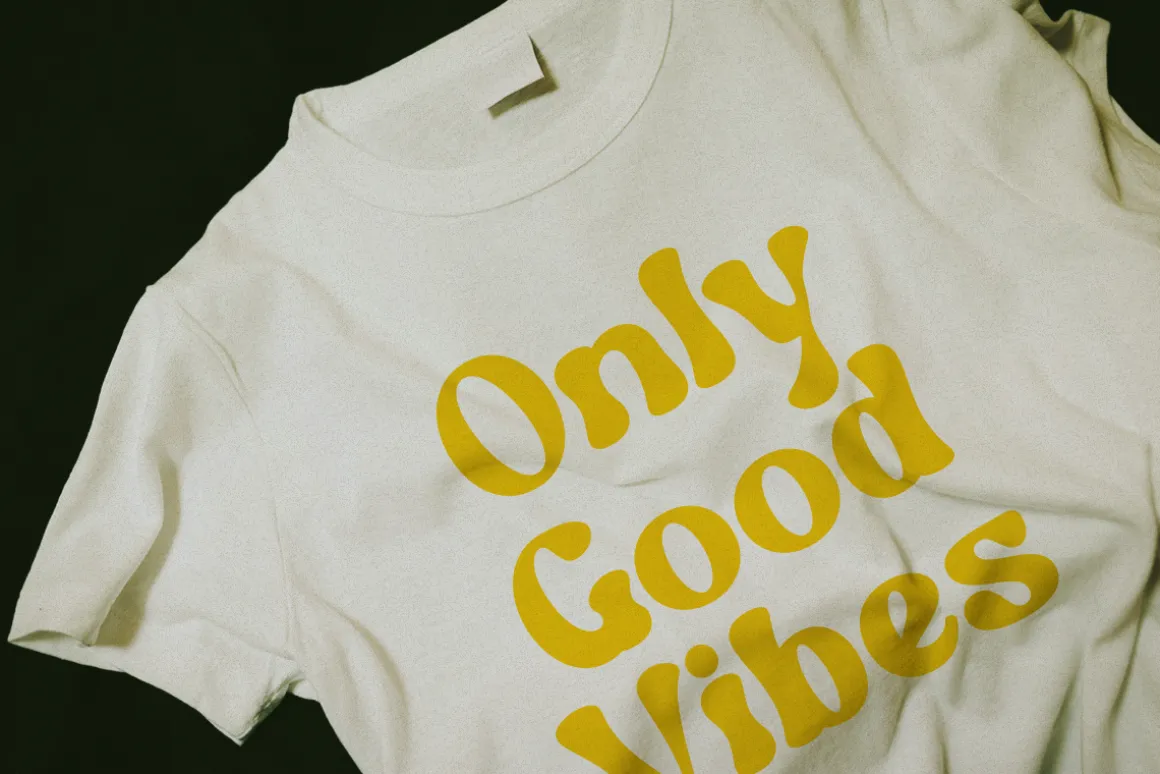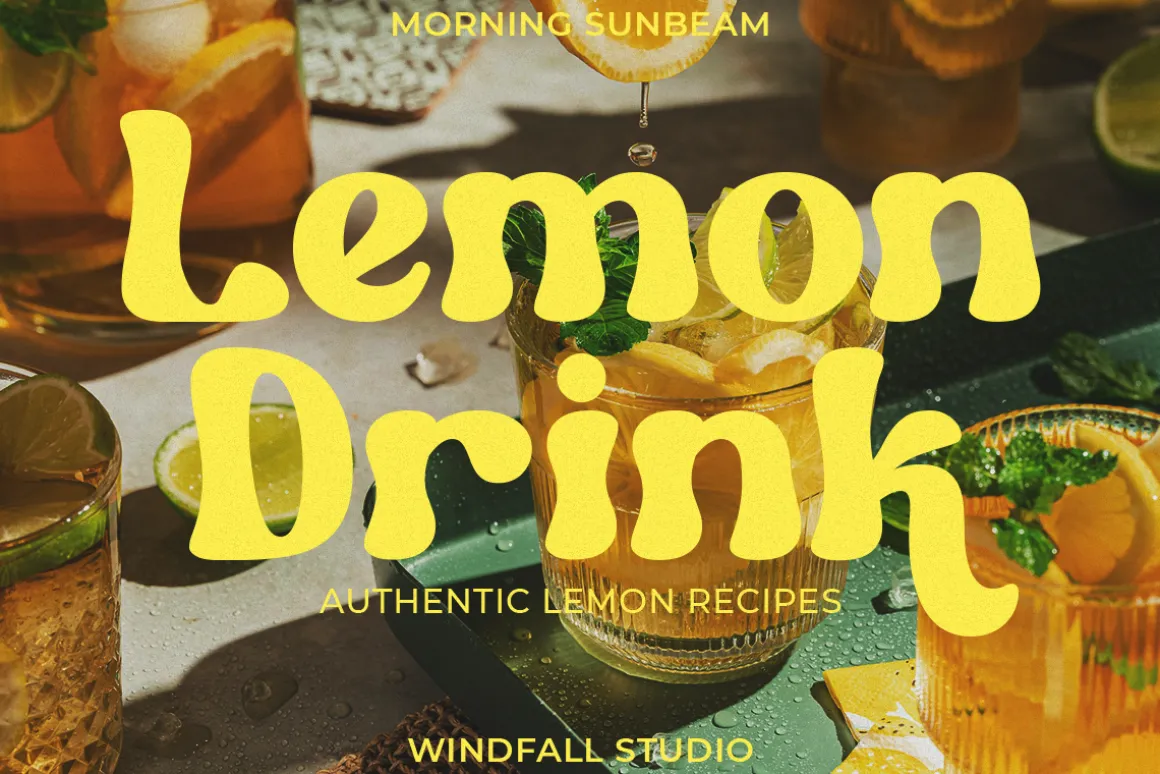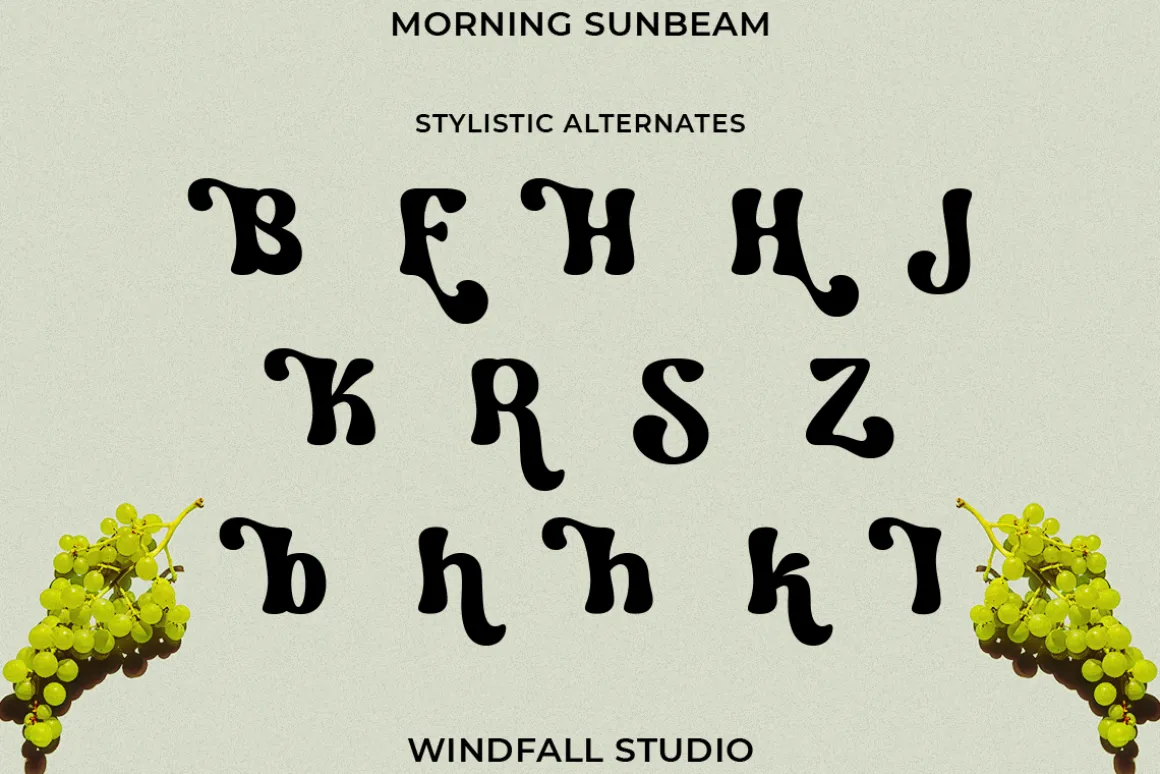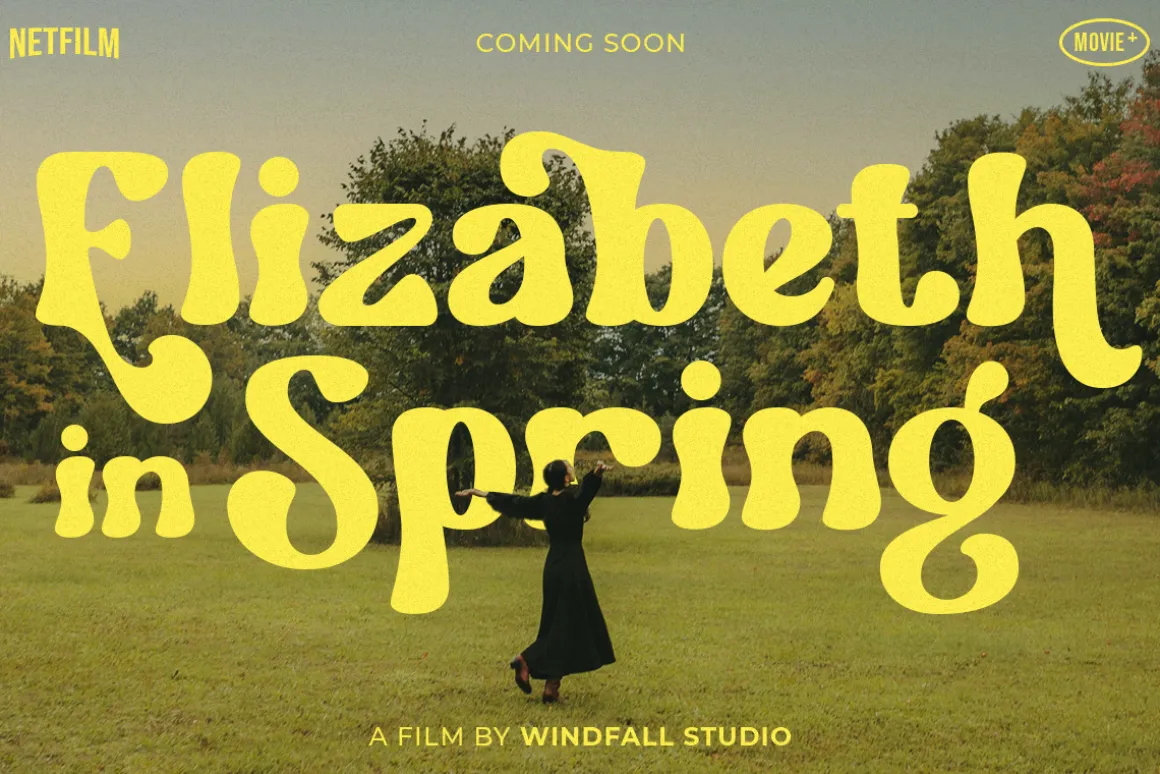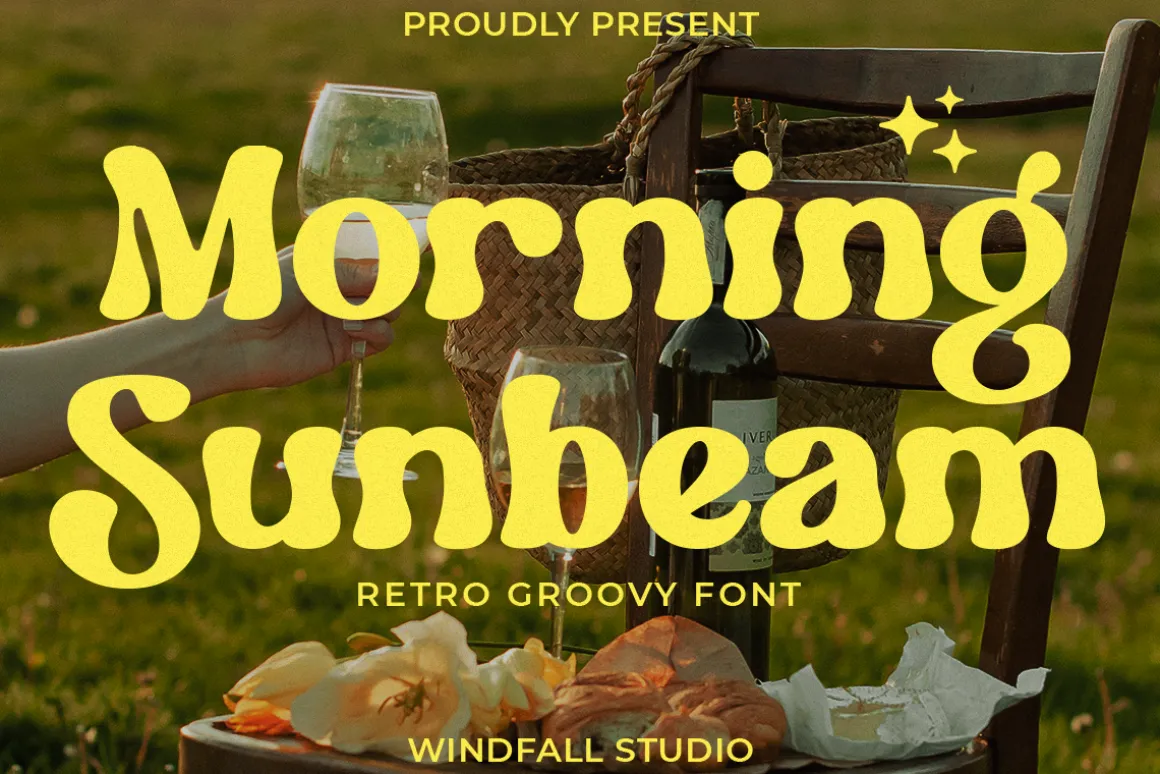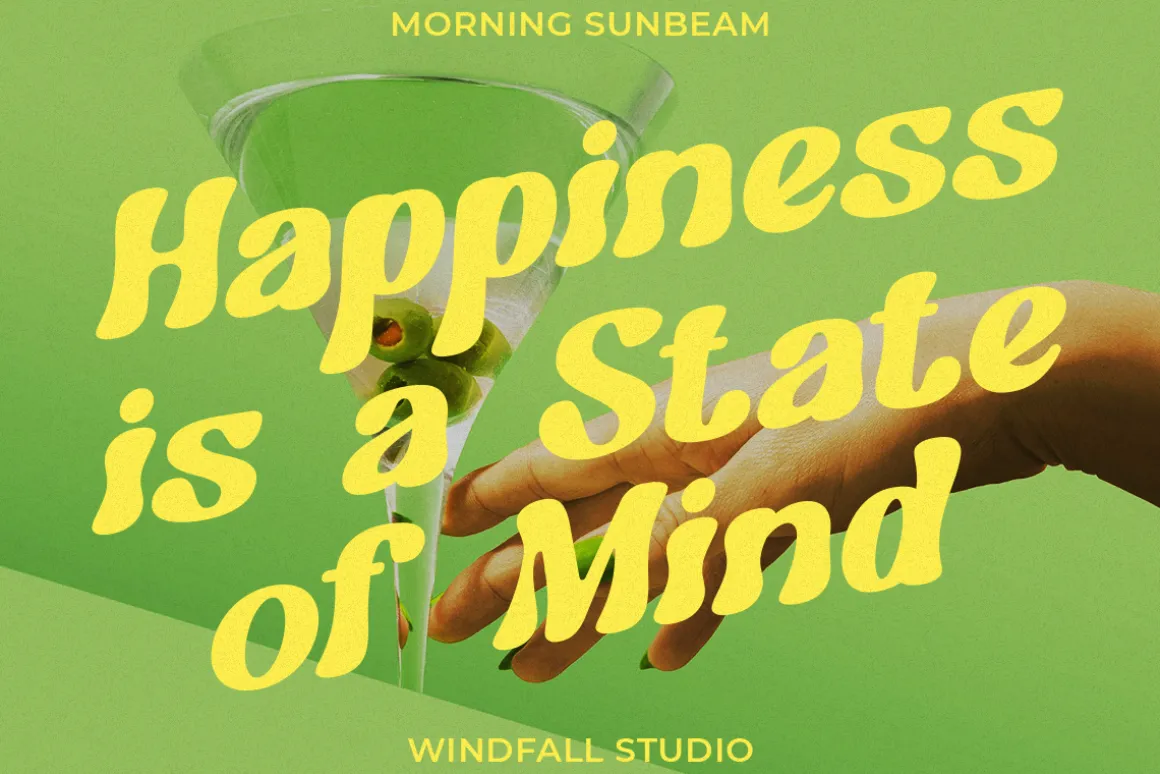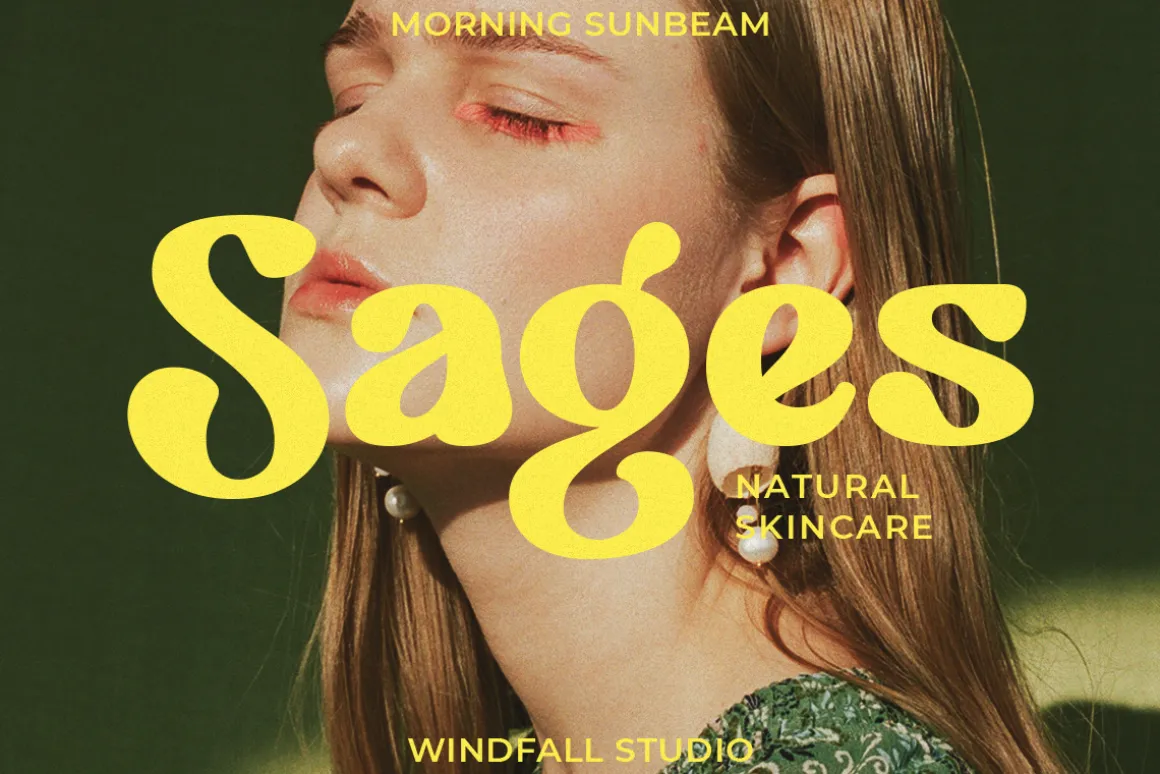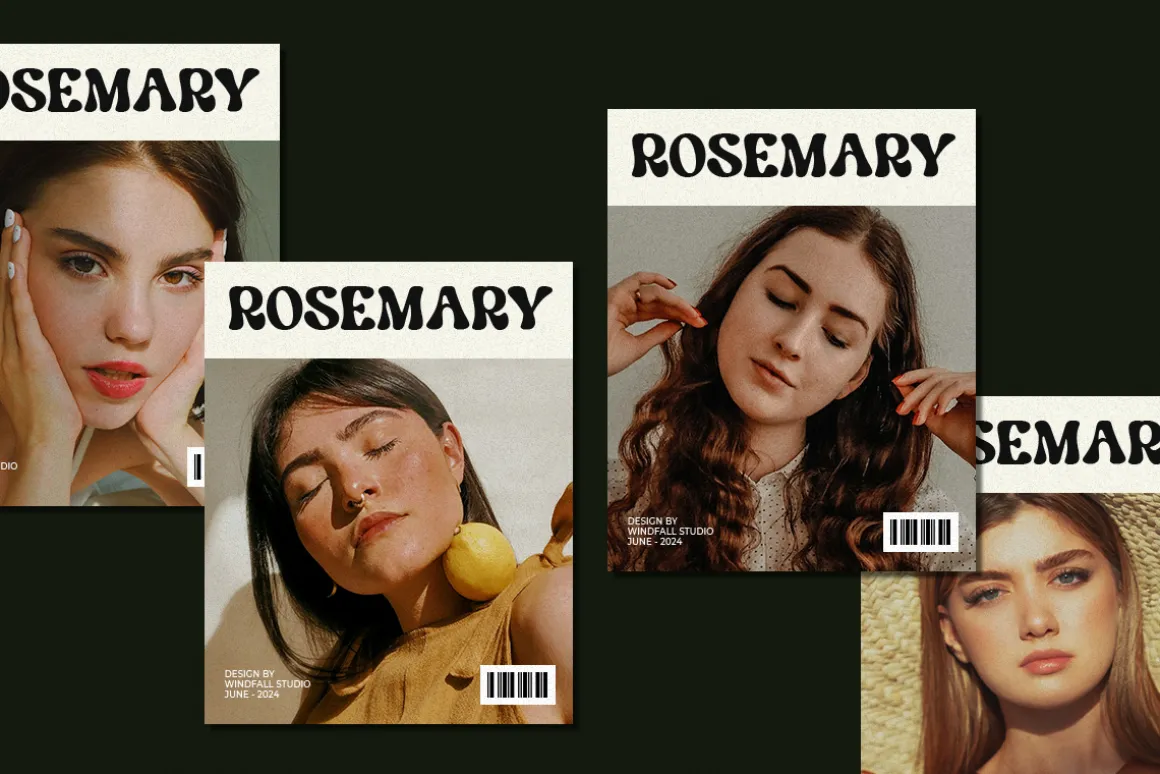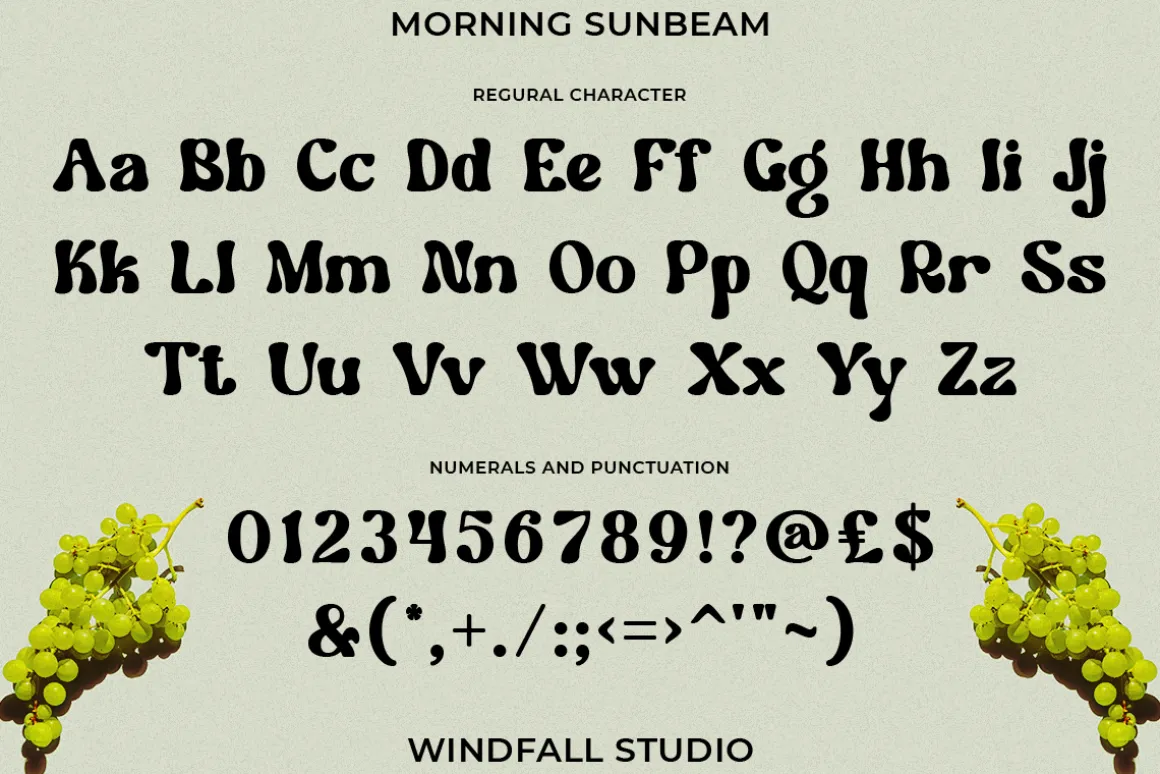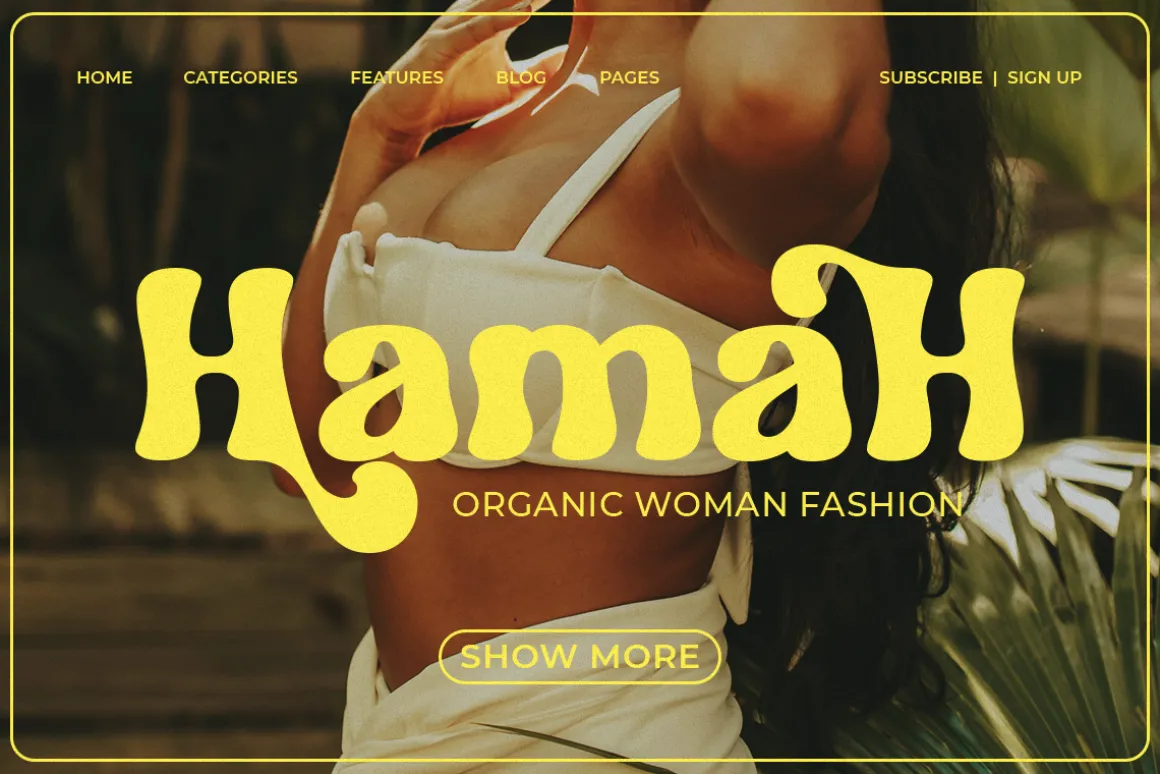
Introducing Morning Sunbeam, a unique and bold retro groovy font from Windfall Studio. This font brings a nostalgic feel to your designs with its thick, whimsical characters and playful vibe. Perfect for posters, logos, social media graphics, and any project that needs a touch of vintage charm. The Morning Sunbeam font captures the essence of the 70s with its flowing lines and rounded edges, making it ideal for any creative project looking to stand out with a distinctive retro flair.
Morning Sunbeam Features:
- Uppercase & Lowercase
- Alternates & Ligatures
- Numerals & Punctuation
- Accented characters
- Multilingual Support